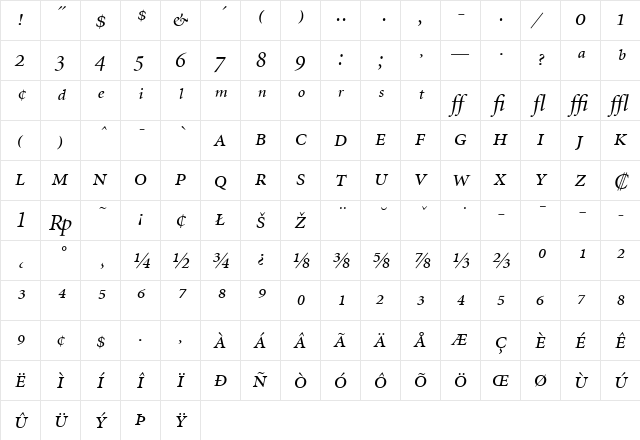
Minion Expert Display Italic
Design Context for Minion Expert Display Typeface
Minion Expert Display brings ornamental detail and strong personality to headlines and identities, where visual impact matters more than quiet functionality. The slanted form adds forward momentum and visual energy.
Font Pairing: Pair with a clean neutral sans-serif for body copy to let Minion Expert Display's character lead without overwhelming the composition.
Pro Tip: Use Minion Expert Display exclusively at display sizes — it was designed to be seen, not read at length. Let a neutral companion handle body copy.